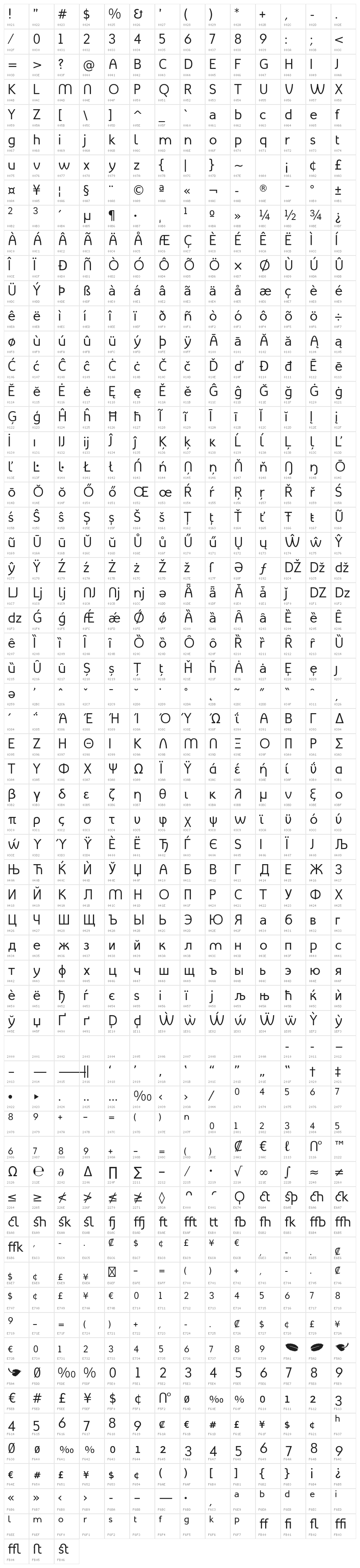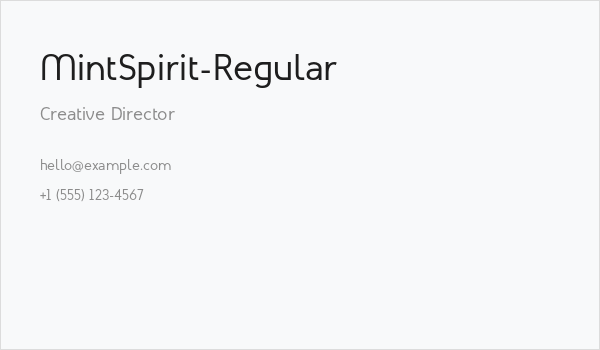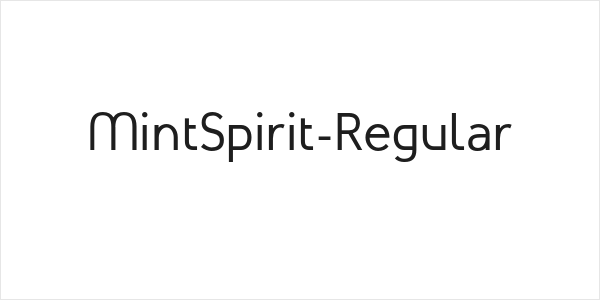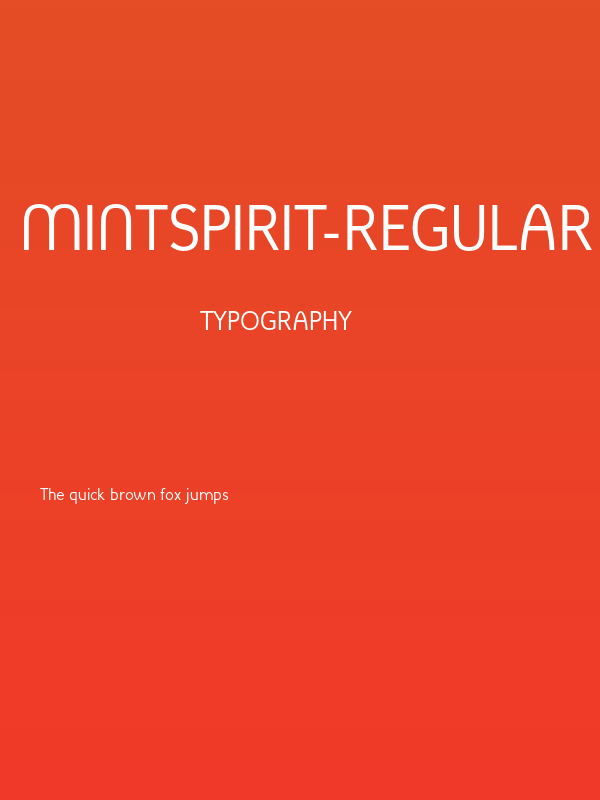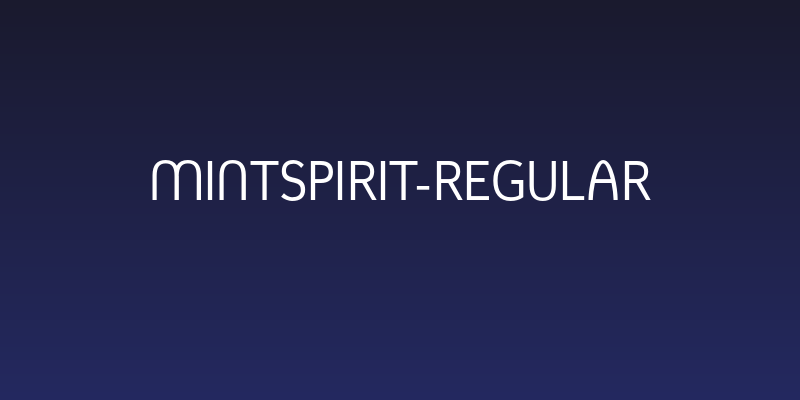
MintSpirit-Regular Font
MintSpirit-Regular Description
This font features a clean and modern sans-serif style with smooth curves and a slightly rounded appearance. The uppercase letters are tall and elegant, while the lowercase letters maintain a consistent height, providing a harmonious look. The numerals are clear and easy to read, making them suitable for various applications. Special characters are well-defined, adding versatility to the font. The overall design is minimalistic, making it ideal for contemporary projects that require a sleek and professional touch.
| Proposed Projects | Ideal for branding, web design, advertising, and editorial projects that require a clean and modern aesthetic. |